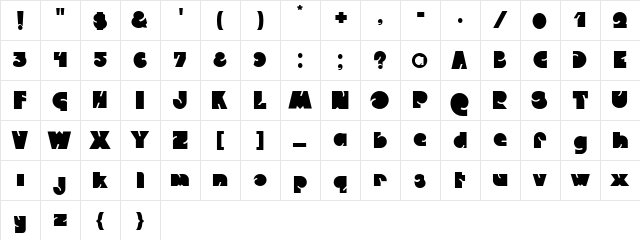
Qweckle Regular
Design Context for Qweckle Typeface
Qweckle is a composed and adaptable typeface that performs quietly and consistently across a wide range of design contexts.